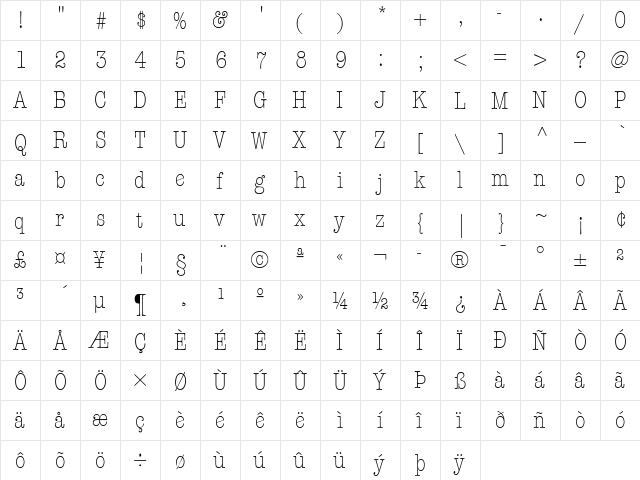
AmericanTypewriter LT LightCnA Regular Font Preview
Design Context for AmericanTypewriter LT LightCnA Typeface
AmericanTypewriter LT LightCnA uses fixed-width spacing throughout, giving it the structured, systematic character associated with coding environments and technical documentation. Its slender proportions lend an understated elegance to any composition.
Pro Tip: Use AmericanTypewriter LT LightCnA with slightly increased line-height for extended reading — fixed-width spacing can feel dense in longer passages without extra breathing room.